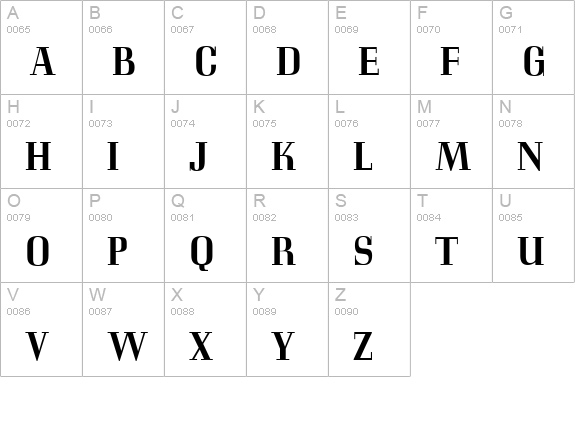
C794-Roman-Bold is a strong, high-contrast variant in the C794 typeface family \xE2\x80\x94 well suited to headlines, attention-grabbing titles, and strong calls-to-action.
C794-Roman-Bold is a versatile and eye-catching font that exudes elegance and sophistication. Its bold weight commands attention while remaining easily readable, making it perfect for a variety of design projects. Whether you're creating eye-catching headlines, striking logos, or stylish branding materials, C794-Roman-Bold is sure to make a bold statement. Best of all, this stunning font is available for free download at FontsMarket.com. Take advantage of this incredible opportunity to enhance your design projects with the timeless beauty of C794-Roman-Bold. Download it now and add a touch of class to your designs.